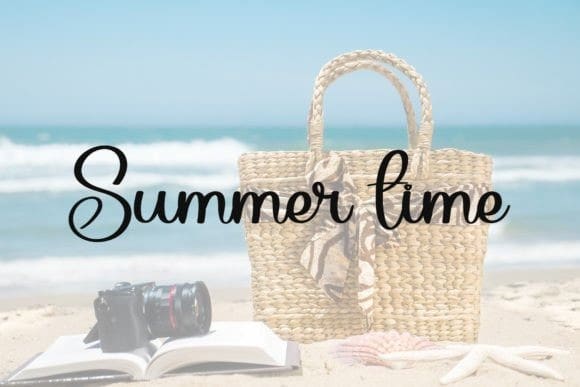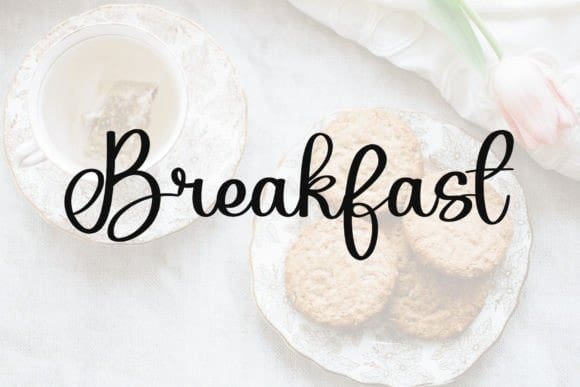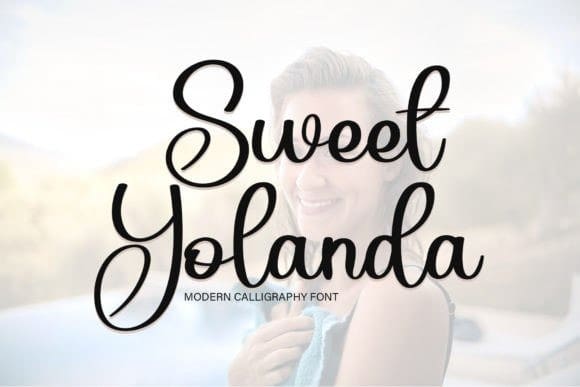
Sweet Yolanda Font
Sweet Yolanda Font is a fun and casual handwritten font. Incredibly versatile, this font is suitable for a wide pool of design ideas.